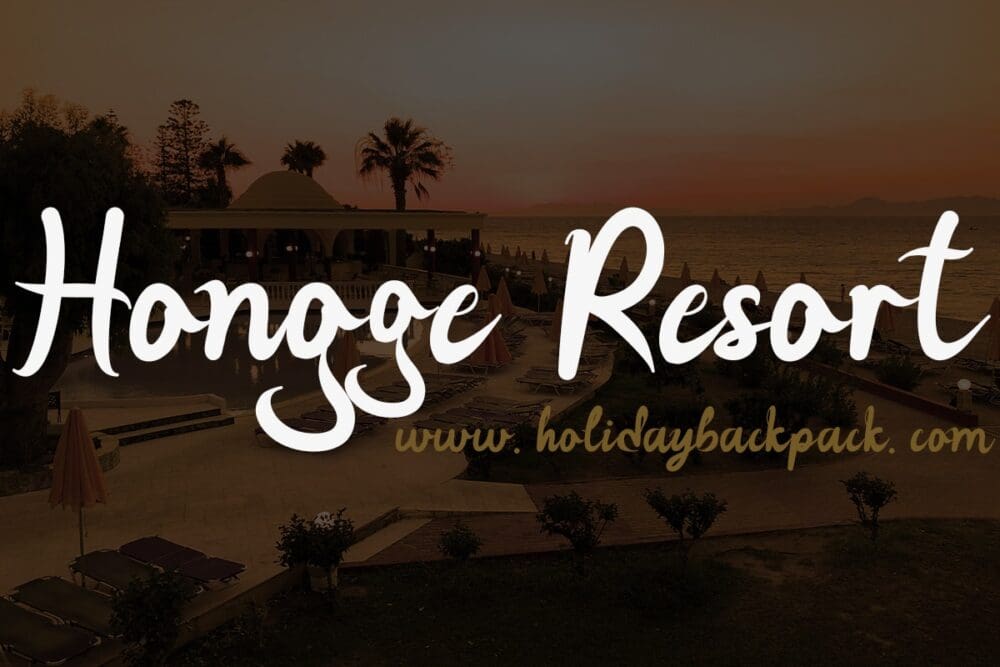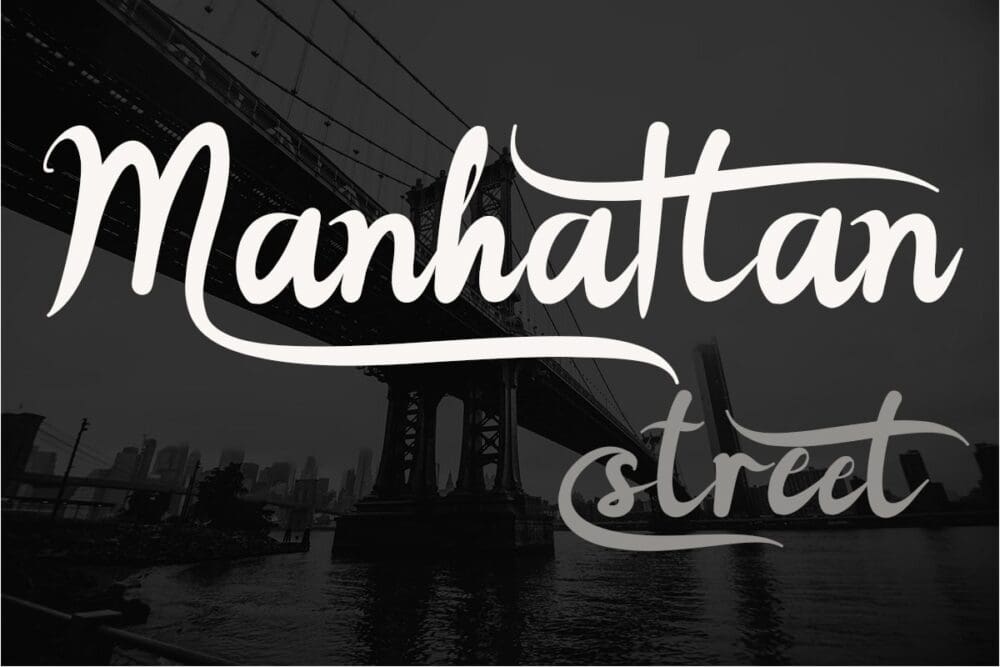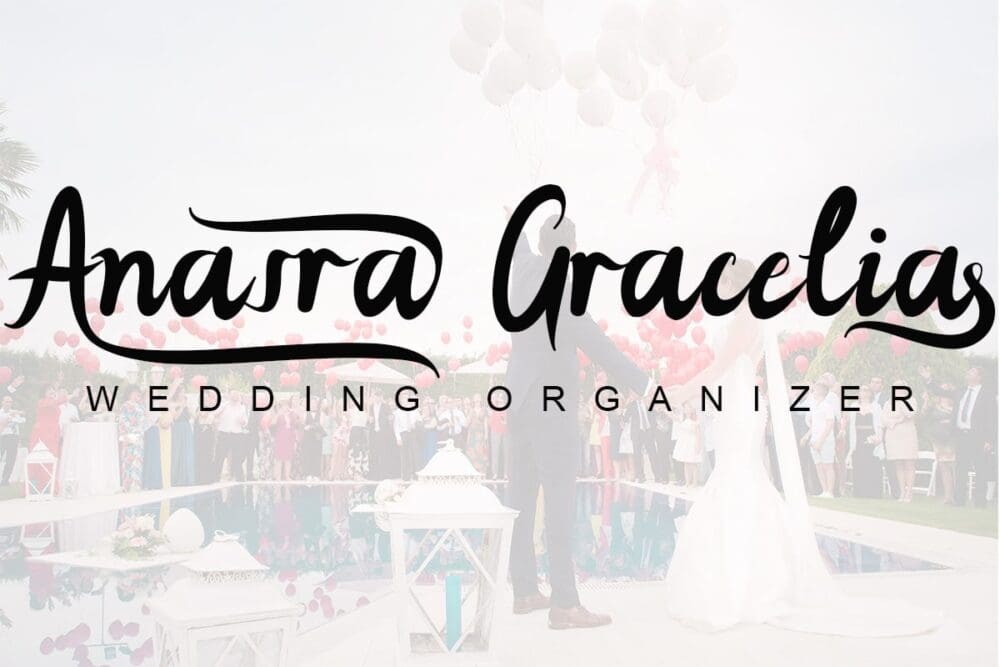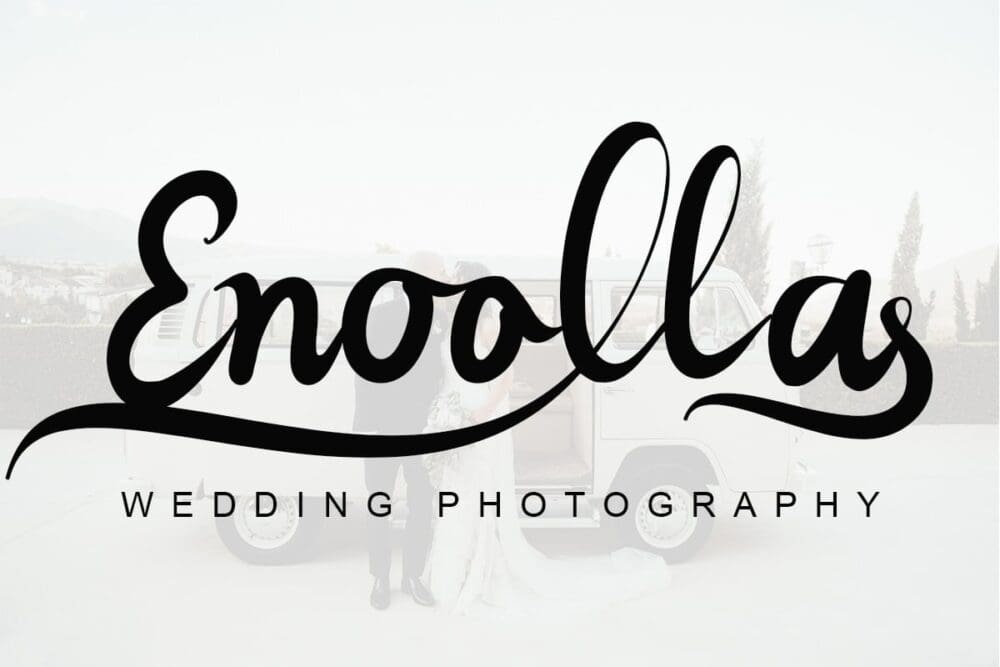
The Brilliant Font
The Brilliant font feels equally charming and elegant. It looks stunning on wedding invitations, thank you cards, quotes, greeting cards, logos, business cards and every other design which needs a handwritten touch.